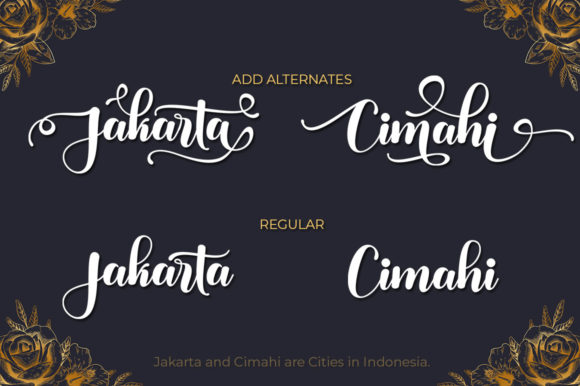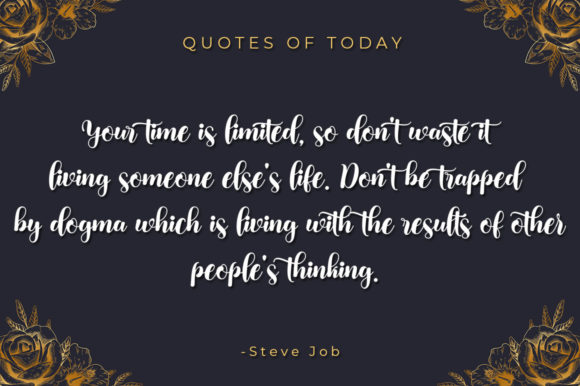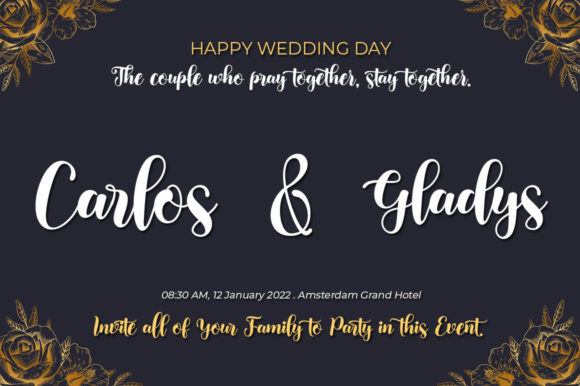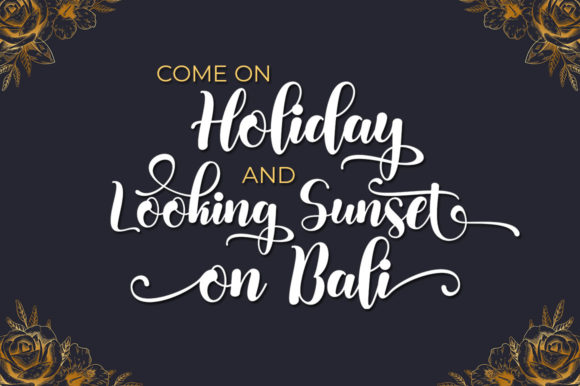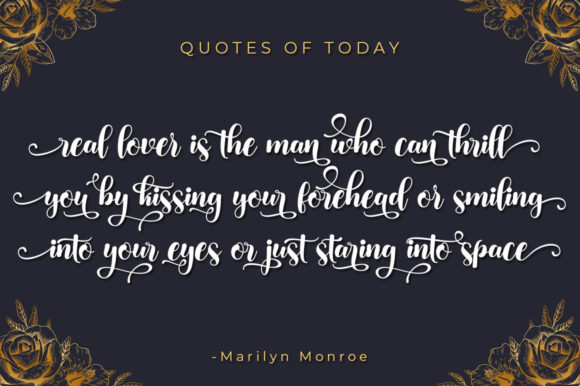
Introduction to Master Elegant Font
Master Elegant is a unique and elegant handwritten font.
It looks beautiful on a variety of designs requiring a personalized style, such as wedding invitations, thank you cards, weddings, greeting cards, logos and so on Master Elegant is PUA encoded which means you can access all of the glyphs and swashes with ease.
Key Features of Master Elegant Font
Why Choose Master Elegant Font?
Master Elegant Font offers exceptional quality and versatility, making it a valuable addition to your design toolkit. Whether you’re creating for personal projects or commercial use, Master Elegant Font delivers professional results.